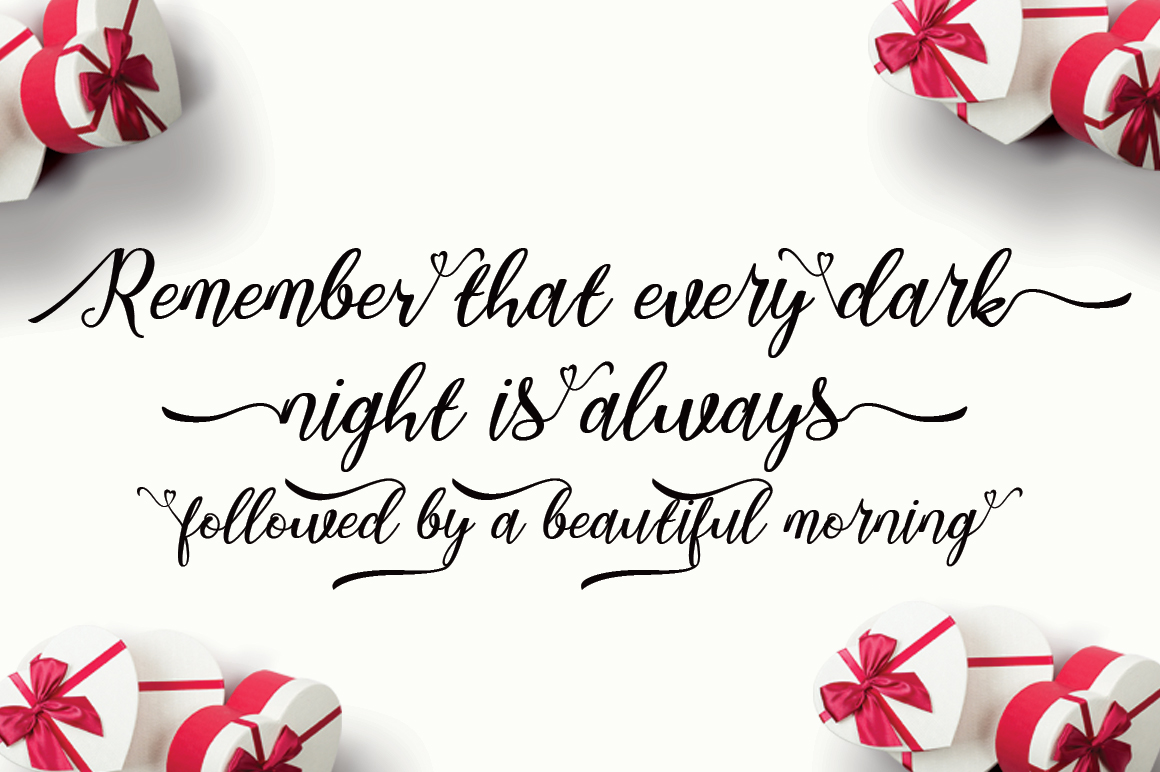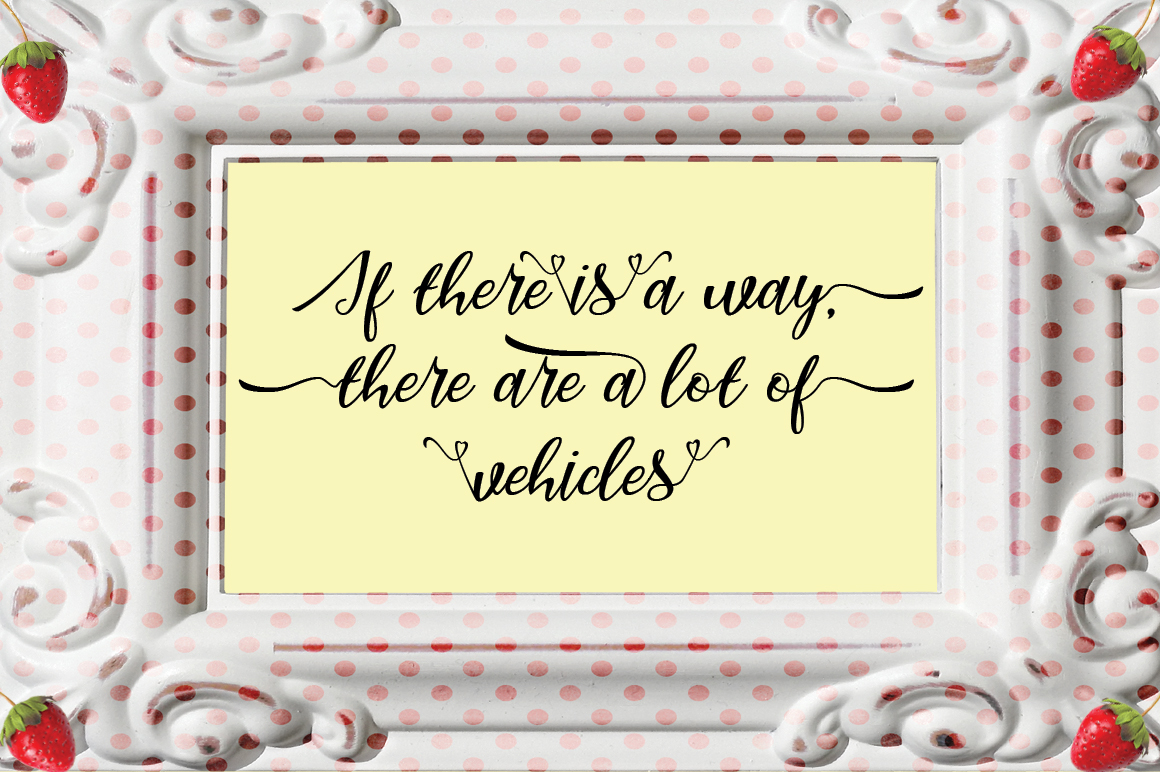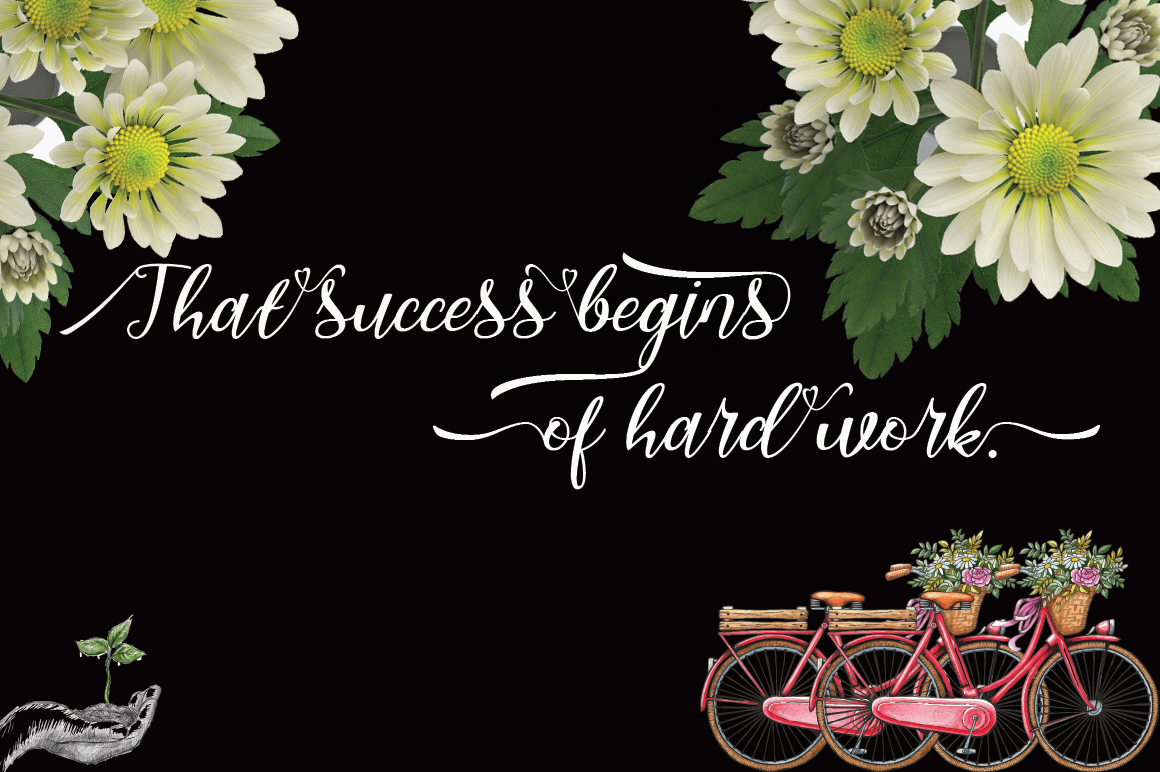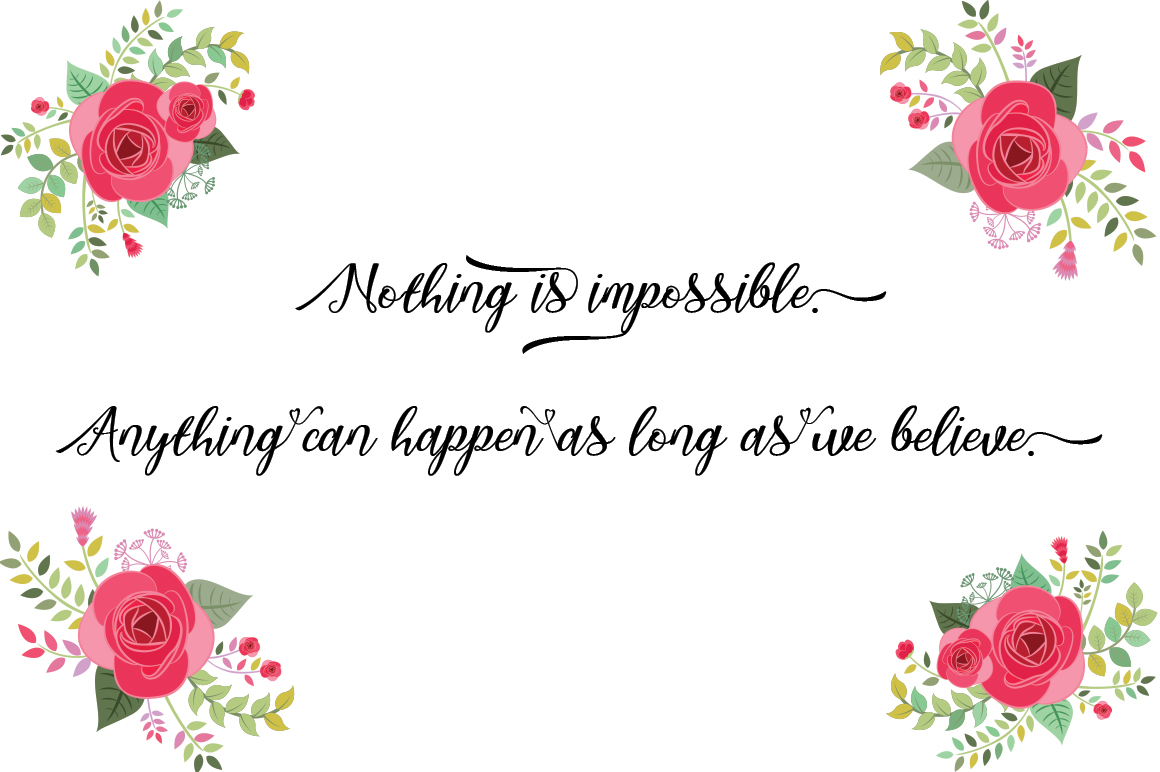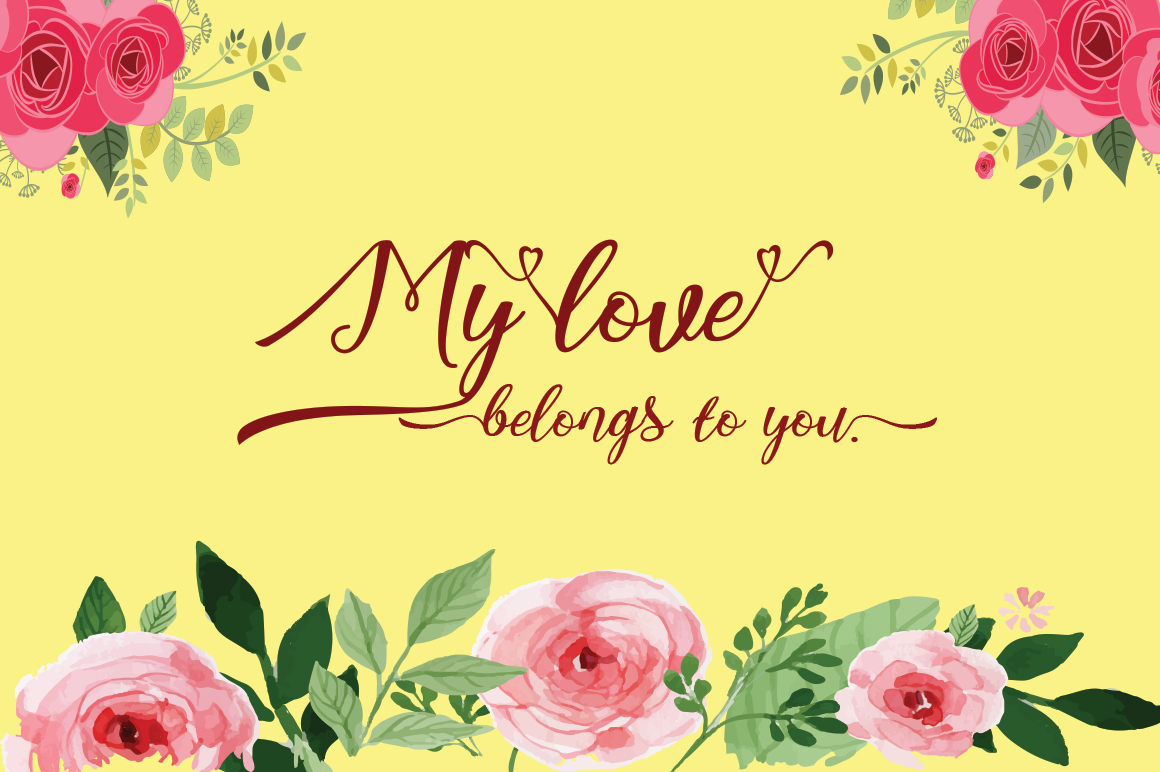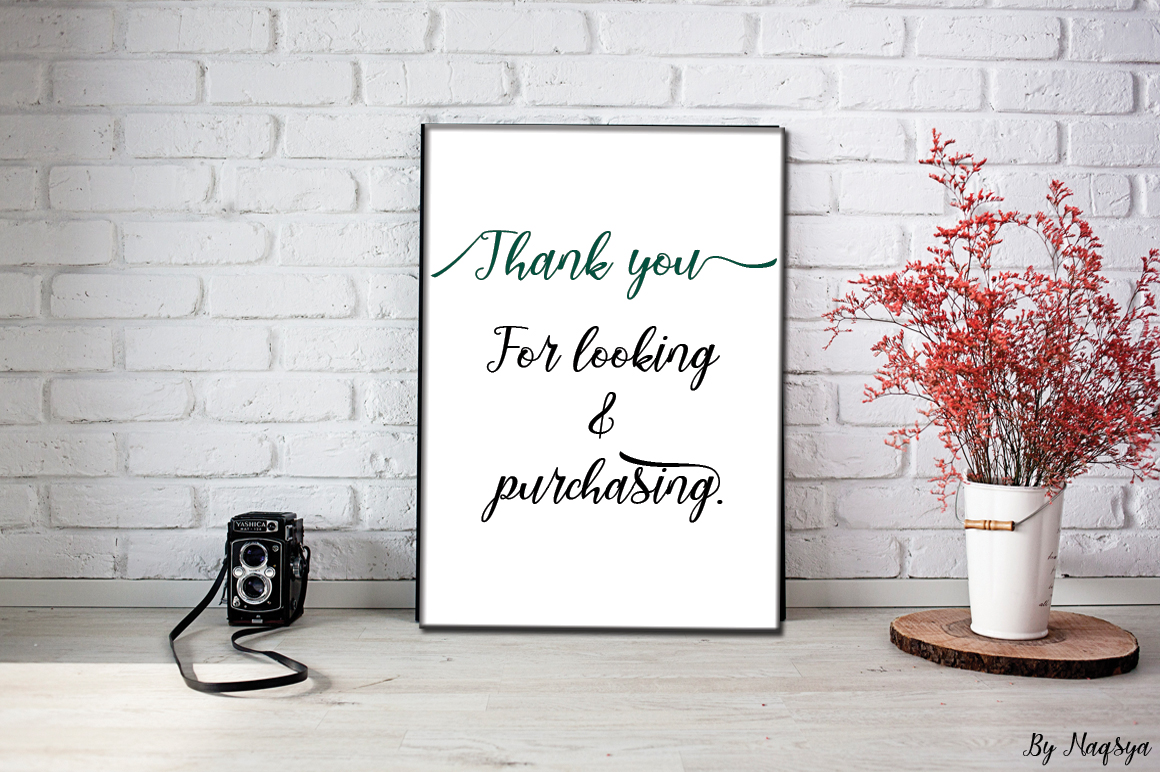
The Birth of a Masterpiece: Jackfuit Font
Have you ever been struck by inspiration in the middle of the night, with ideas flowing like a river and creativity coursing through your veins? That’s exactly what happened to the talented team at Naqsya.Co, the masterminds behind the stunning Jackfuit Font.
This beautiful handwritten font was created with the intention of bringing a touch of elegance and sophistication to any design project. Whether you’re a seasoned designer or a creative enthusiast, the Jackfuit Font is sure to captivate your senses and leave you wanting more. With its unique blend of modern and classic elements, this font is a valuable addition to any designer’s toolkit, allowing them to add a personal touch to their work and stand out from the crowd.
Key Features of Jackfruit Font
- Unique Characteristics: Jackfruit Font features a distinctive blend of modern and vintage elements, with intricate details and subtle textures that add depth and visual interest to designs.
- Character Set: The font includes a comprehensive character set, including Latin, Greek, and Cyrillic alphabets, as well as punctuation and special characters, making it suitable for a wide range of applications.
- Font Style: Jackfruit Font is available in regular, italic, bold, and bold italic styles, providing flexibility and versatility for designers and typographers.
Designer Review: Jackfruit Font
Overall, I was excited to dive into the Jackfruit Font, but my experience was a mixed bag. Let’s break it down.
- Unique character shapes: Jackfruit Font’s letterforms are distinct and visually appealing, making it perfect for designers looking to add some flair to their projects.
- Legibility: Despite its unconventional design, Jackfruit Font is surprisingly easy to read, even at smaller font sizes.
- Playful vibe: This font exudes a fun, carefree energy that’s perfect for creative projects, like children’s books or marketing materials.
- Limited language support: Jackfruit Font seems to be optimized for English, and its support for other languages is limited.
- Lack of bold and italic variants: While the font’s unique design is its strength, it would be nice to have more comprehensive weight and style options.
- Some characters feel inconsistent: A few letters, like the ‘g’ and ‘p’, feel like they don’t quite fit with the rest of the font.
While Jackfruit Font is a visually striking choice, its limitations hold it back from being a go-to font for everyday use. Still, it’s a great option for designers looking to add some personality to their projects. Just be aware of its limitations and use it judiciously.
Jackfruit Font Practical Application Guide
Getting the Most Out of Jackfruit Font
For optimal results, use Jackfruit Font in combination with bold or italic styles to create visual interest. You can also experiment with different font sizes and colors to create a unique look. Additionally, use Jackfruit Font for headings and titles to create a clear hierarchy of information.
Jackfruit Font is ideal for:
- Designing a unique brand identity
- Creating eye-catching headings and titles
- Adding a touch of whimsy to your design
Alternatives to Jackfruit Font
Great Vibes is a beautiful, elegant script font perfect for creating a warm and inviting atmosphere. It’s ideal for use in wedding invitations, greeting cards, and other creative projects where a touch of whimsy is desired. Compared to Jackfruit Font, Great Vibes has a more refined and sophisticated look, making it suitable for a wider range of applications.